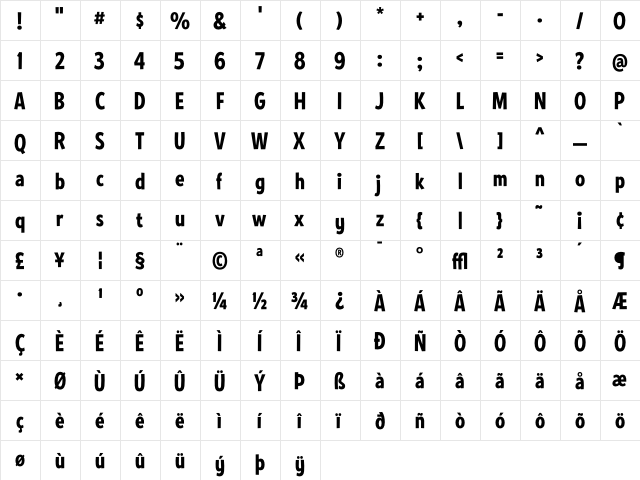
EdPS Gothic
Design Context for EdPS Typeface
EdPS takes a clean, functional approach — its unadorned letterforms prioritise legibility and work reliably across screen and print environments.
Font Pairing: Works well alongside a characterful serif or display font that can carry the expressive load while EdPS handles the functional copy.
Pro Tip: Use EdPS for UI labels, navigation, and short-form body copy where clean legibility is the priority.